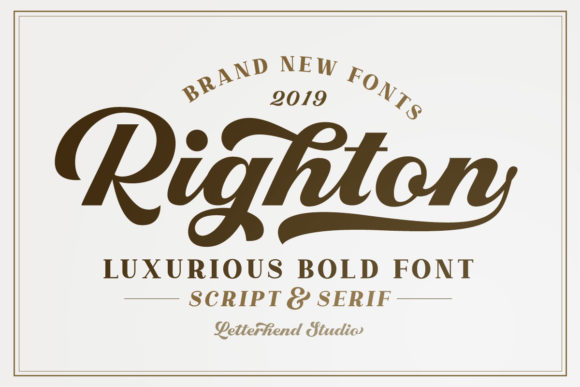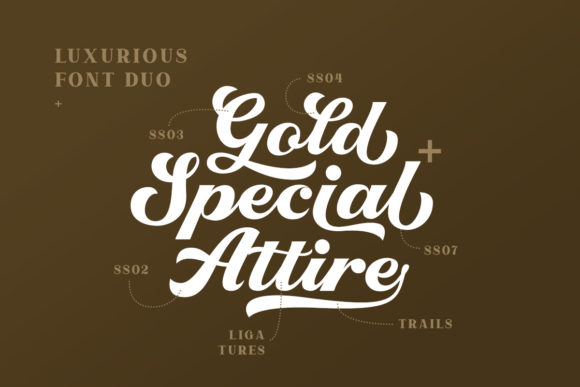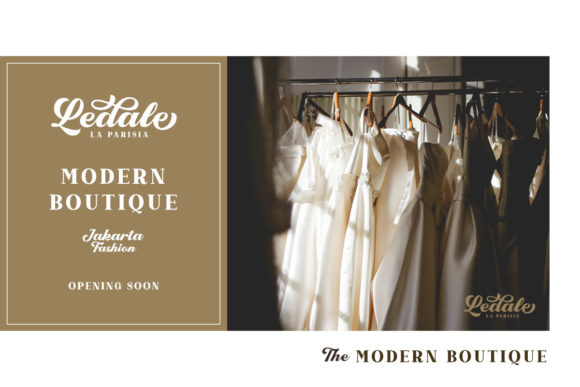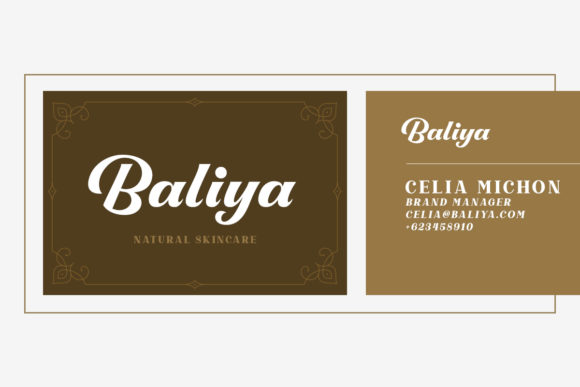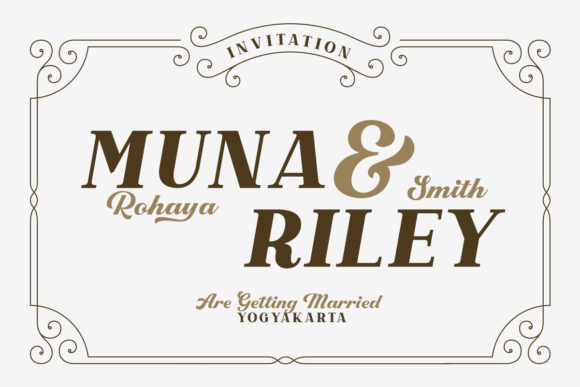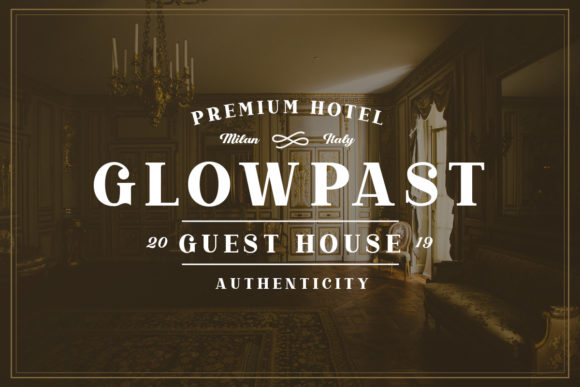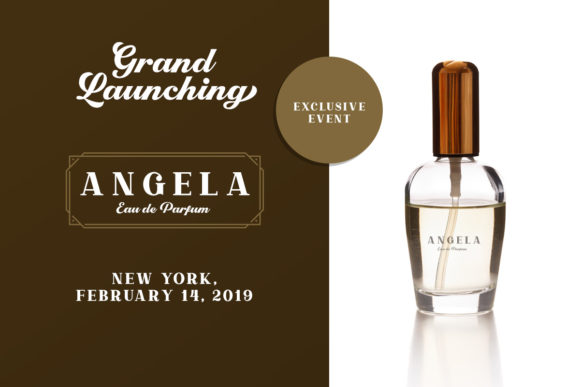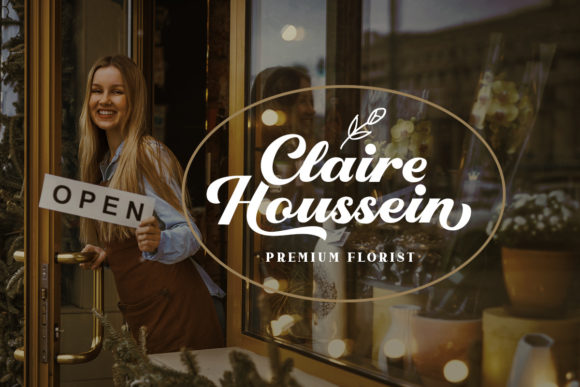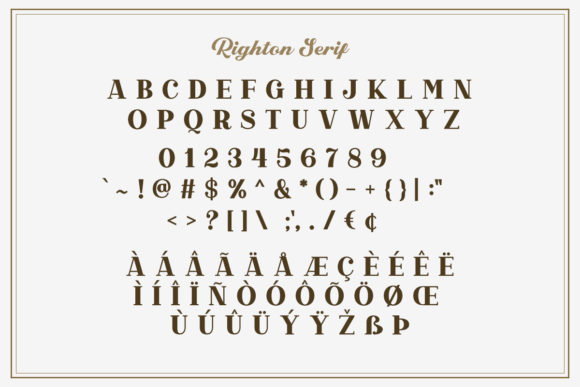
HomeScript FontsRighton Font Script Fonts Righton Font FacebookXPinterestWhatsApp Righton Font Poster 2 Righton Font Poster 3 Righton Font Poster 4 Righton Font Poster 5 Righton Font Poster 6 Righton Font Poster 7 Righton Font Poster 8 Righton Font Poster 9 About Righton Font Righton is a stunning script full of energy. Get inspired by its vintage look & feel. DOWNLOAD ON CREATIVE FABRICAThis font is sold and delivered by Creative Fabrica. Font Canyon may earn a commission if you buy through this link. People also explored Long Beach Font Business Font Scarlett Busiat Font Mathulesy Font Kenir Font Stay Classy Font Lovely Pudding Font Euis Font Greenhouse Font 325 0 TagsRighton Font Previous articleSeronita FontNext articleBallita Script Font LEAVE A REPLY Cancel reply Comment: Please enter your comment! Name:* Please enter your name here Email:* You have entered an incorrect email address! Please enter your email address here Website: Save my name, email, and website in this browser for the next time I comment. Personal Use Free Almonte Personal Use Free Read more about this font Vogue Font Personal Use Free Read more about this font GoodFay Personal Use Free Read more about this font Eniem Personal Use Free Read more about this font BLOG Top 7 Google Fonts Alternatives for Faster and Privacy-Friendly Web Design (2025) Top 7 Google Fonts Alternatives for Faster and Privacy-Friendly Web Design (2025) When it comes to web typography, Google Fonts has long been the go-to... How to Cut Any Font on Cricut: Convert a Font to SVG (Free) The 10 Best Handwriting Fonts to Add Personality to Your Designs Top 10 Handwritten Fonts That Elevate Your Designs